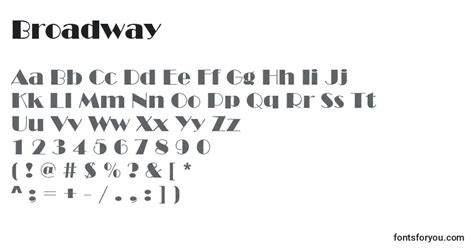
Broadway free font
Broadway Font Generator - Every font is free to download! Enter your text, select a font, choose a font size, and. Use our free broadway font generator below to create your own custom design logo or image. Broadway font generator, free text conversion online, no watermark, works for both windows and mac. Click to find the best 27 free fonts in the broadway style.
Broadway Font Generator - Every font is free to download! Create a text effect broadway marquee lights with our online custom font generator. Use our free broadway font generator below to create your own custom design logo or image. Use this free printable broadway font (marquee letters with lights) for bulletin boards, back to school banners, door decorations, or welcome signs. Fontget has the.
Broadway Font Generator - Use our free broadway font generator below to create your own custom design logo or image. Click to find the best 27 free fonts in the broadway style. Broadway font generator, free text conversion online, no watermark, works for both windows and mac. Use this free printable broadway font (marquee letters with lights) for bulletin boards, back to school banners,.